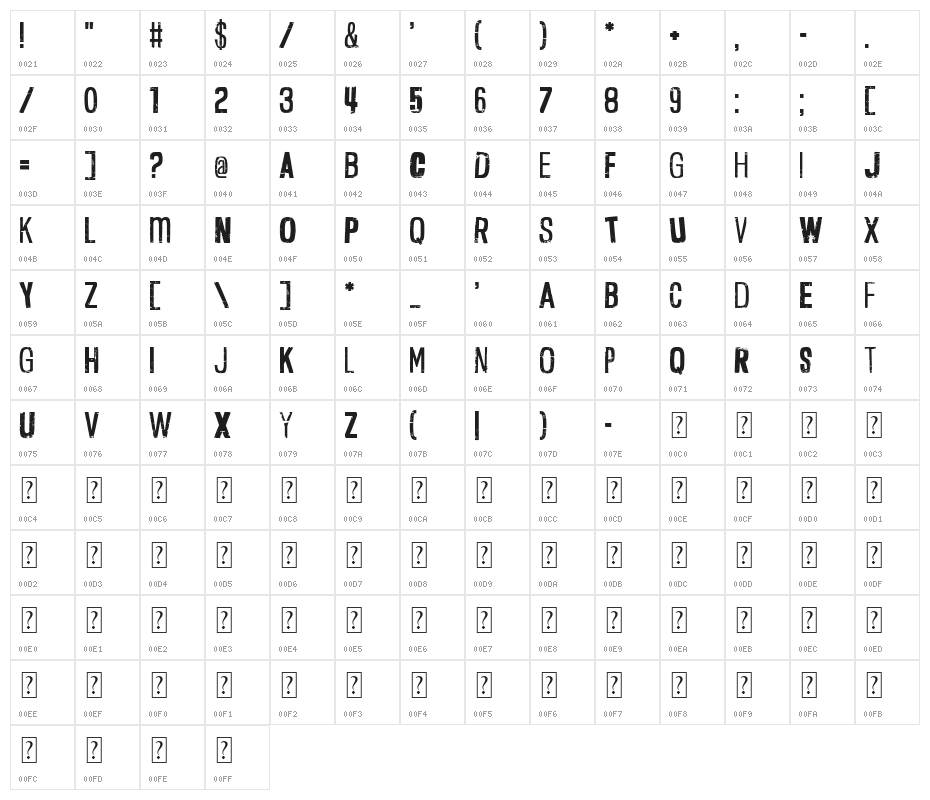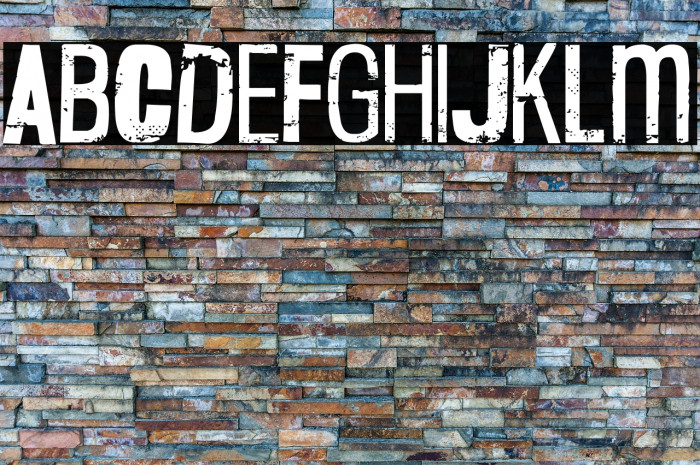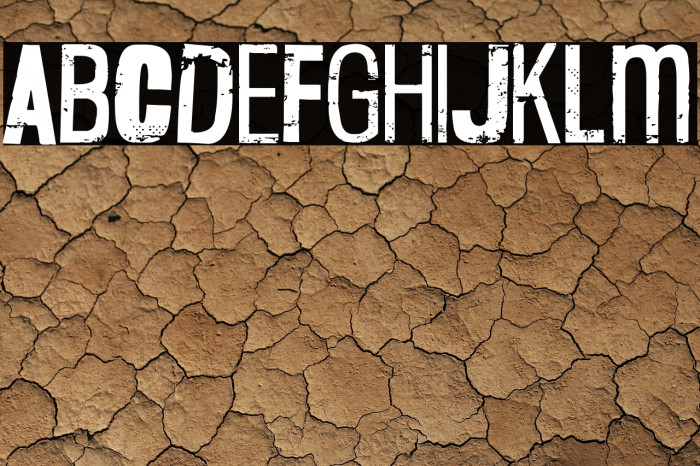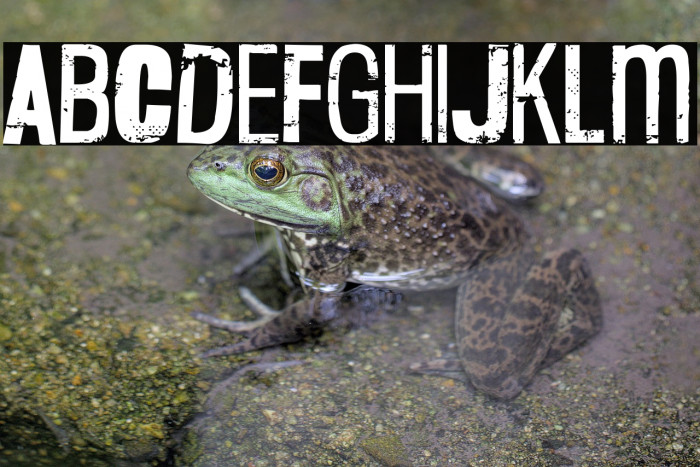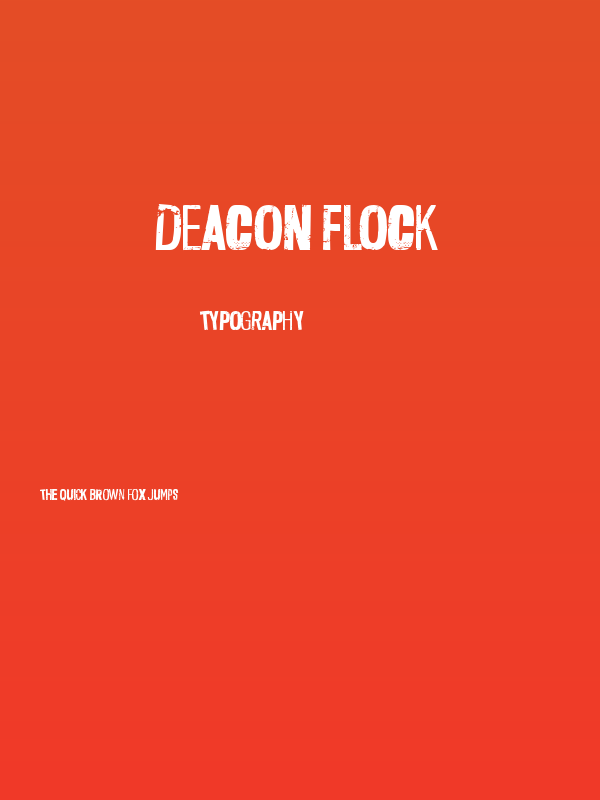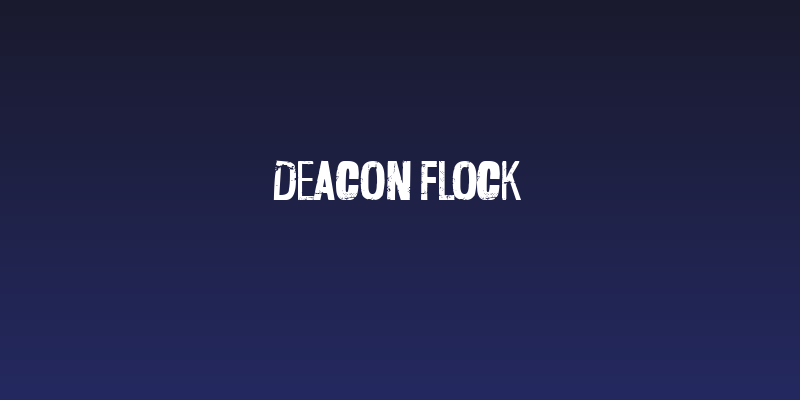
Deacon Flock Font
Deacon Flock Description
This font features a bold, distressed style with a rugged, textured appearance that gives it a vintage, worn-out look. The characters are uppercase and lowercase, with numerals and a selection of special characters. The rough edges and irregularities in the letterforms create a sense of movement and dynamism, making it ideal for designs that require a gritty, urban feel. The font's boldness ensures it stands out, while the distressed texture adds a layer of depth and character. It's perfect for projects that aim to convey a sense of authenticity and rawness.
| Overall Style | Vintage |
| Proposed Projects | Ideal for posters, album covers, branding for edgy or vintage-themed products, and any design needing a gritty, authentic feel. |